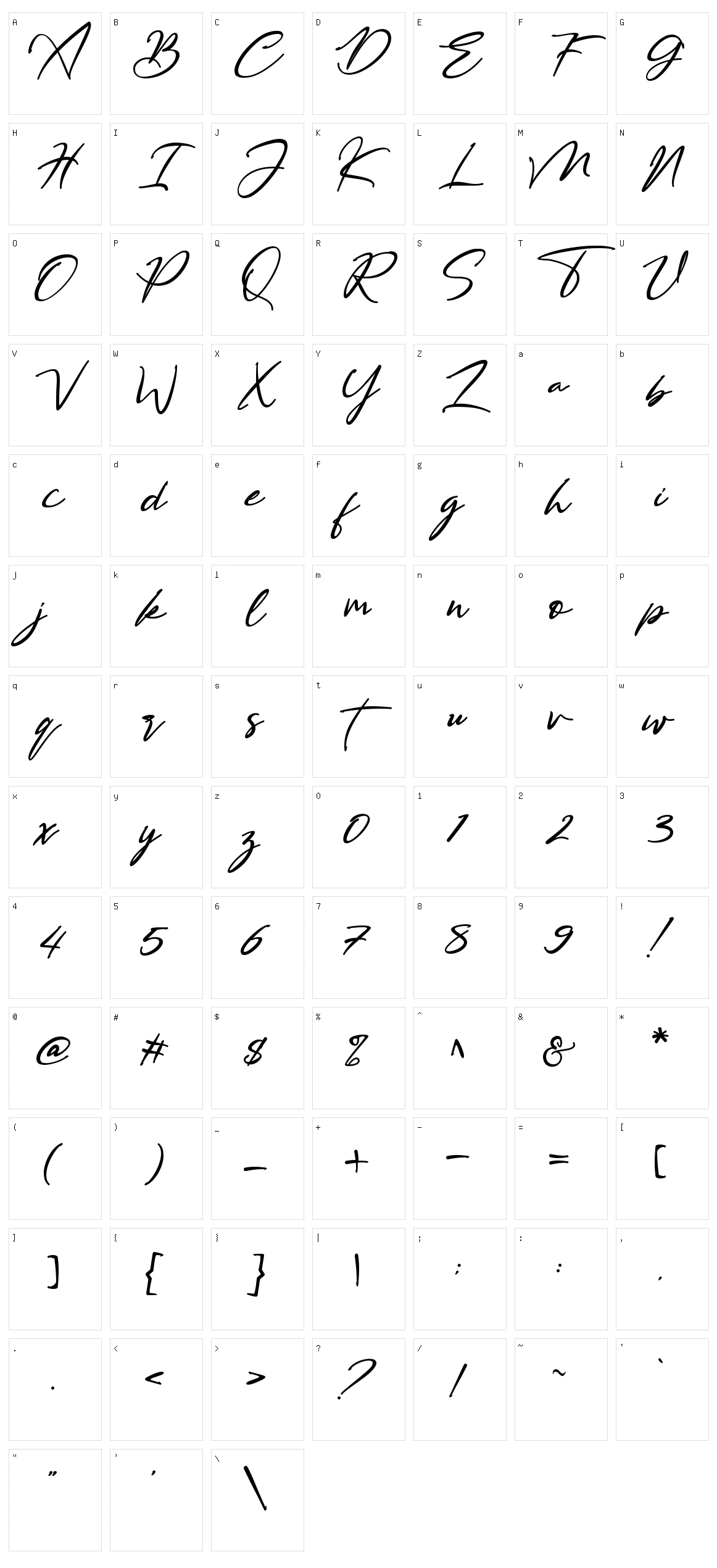
The free font Bestowens Family is carefully designed by Letterara, showcasing a thoughtful balance of creativity and usability and falls under the Script font style. When you download the ZIP file, it contains only 223.13 KB of font files, making it lightweight and quick to download. Please review the license details below to understand permitted usage and distribution rights. If license information is not available, we recommend using this font for personal projects only or contacting the author directly for commercial usage permissions.